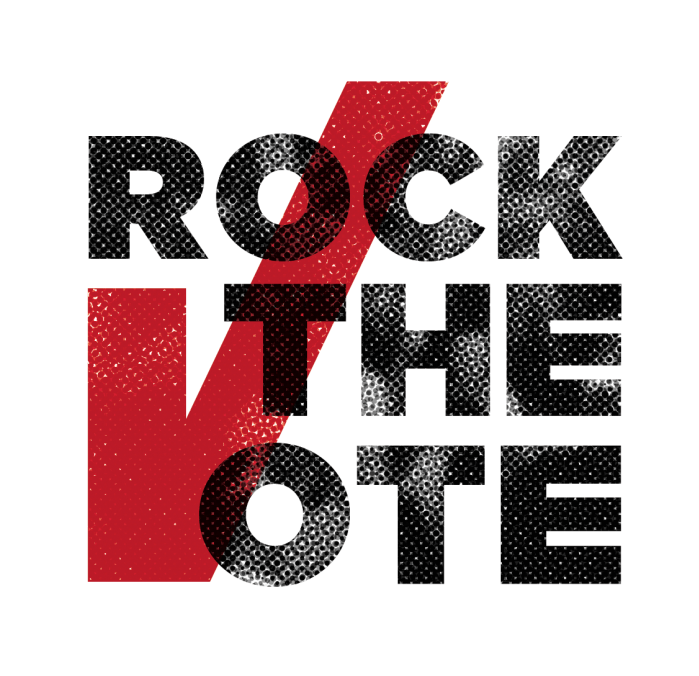
Rock The Vote Font
Fonts in UseRock the Vote is a non-profit organization in the United States that aims to engage young people in the political process by promoting voter registration and civic engagement through music and pop culture. It was founded in 1990 and has since become a leading organization in youth voter registration and advocacy.
Gotham Ultra, a geometric sans-serif digital typeface designed by American type designer Tobias Frere-Jones in 2000, is the font used for the RTV logo. Additionally, a Rock the Vote post showcases various fonts including LHF Firehouse for ROCK, LHF Old Stock 2 Regular for VOTE, LHF Old Abe for Take Part in Democracy.